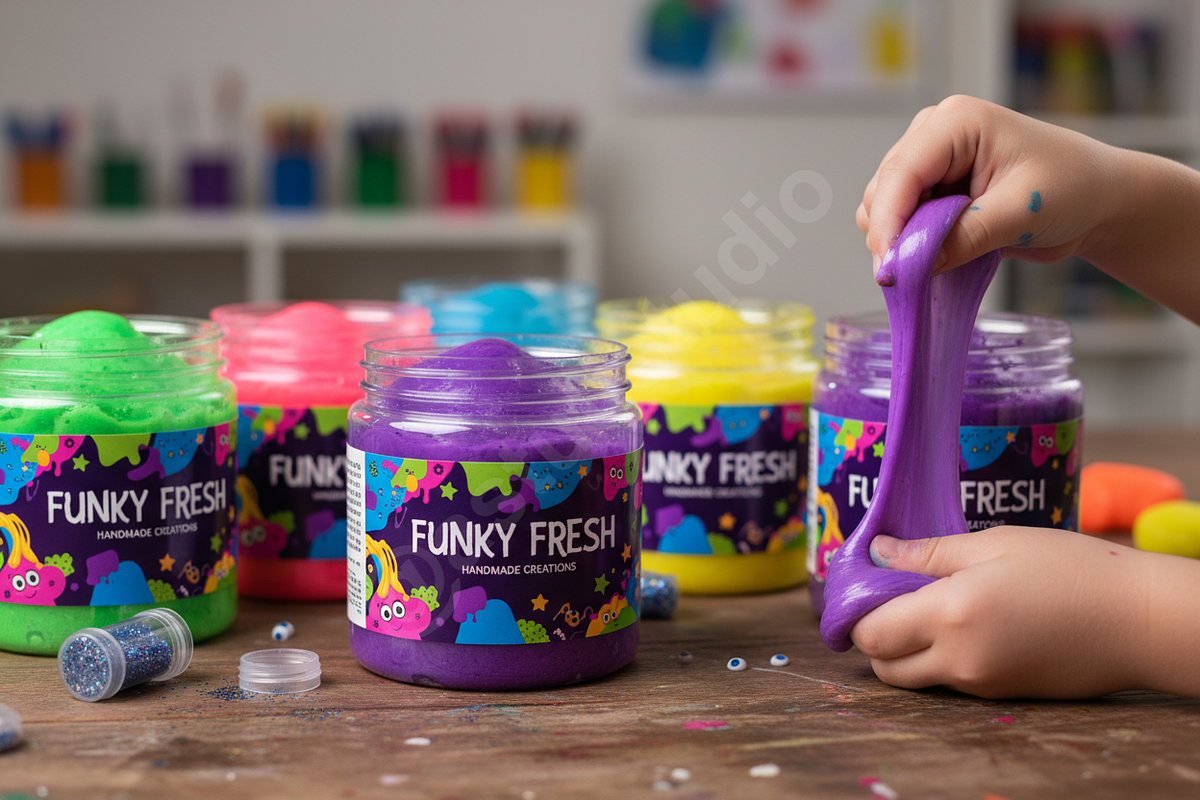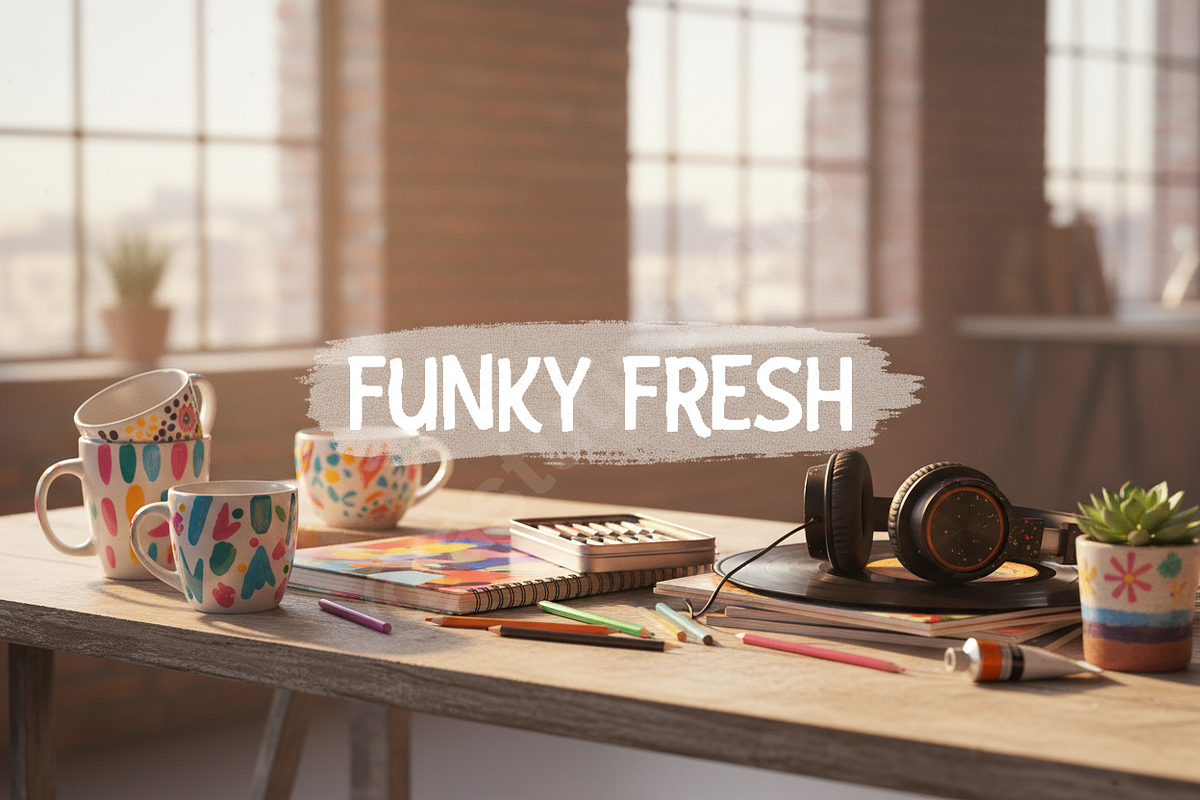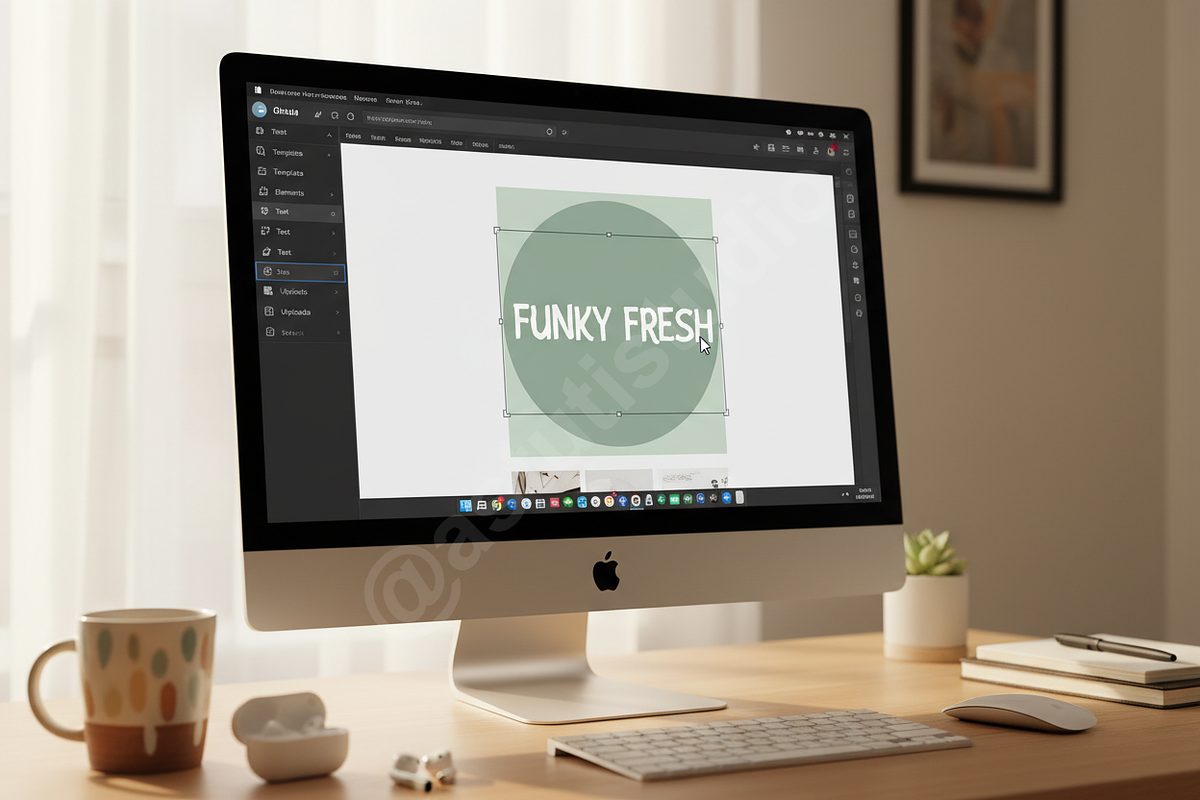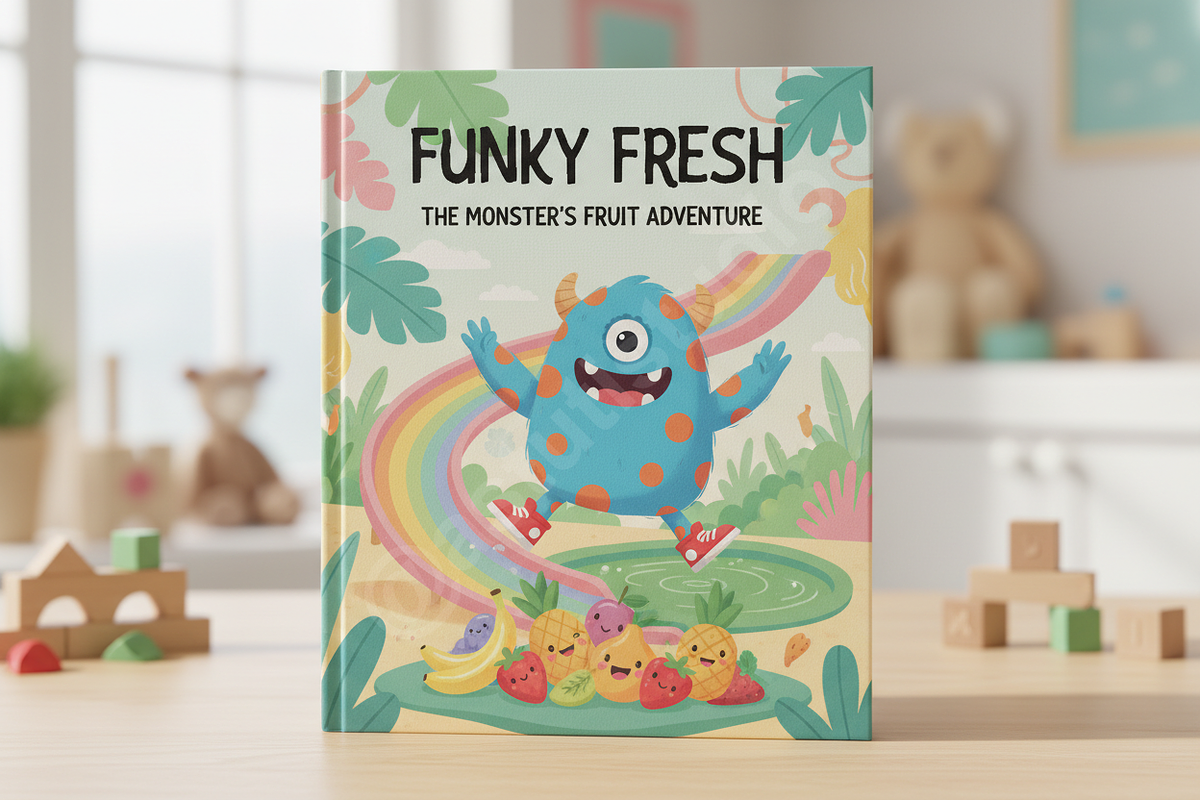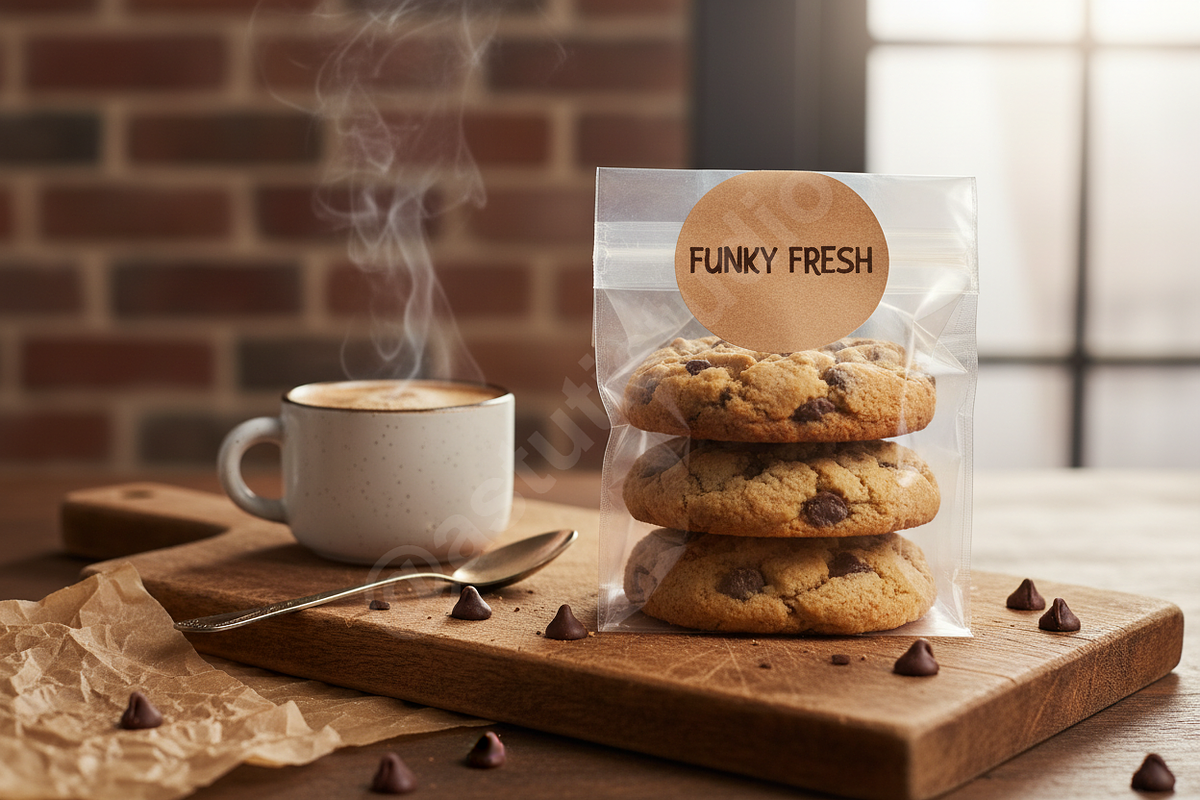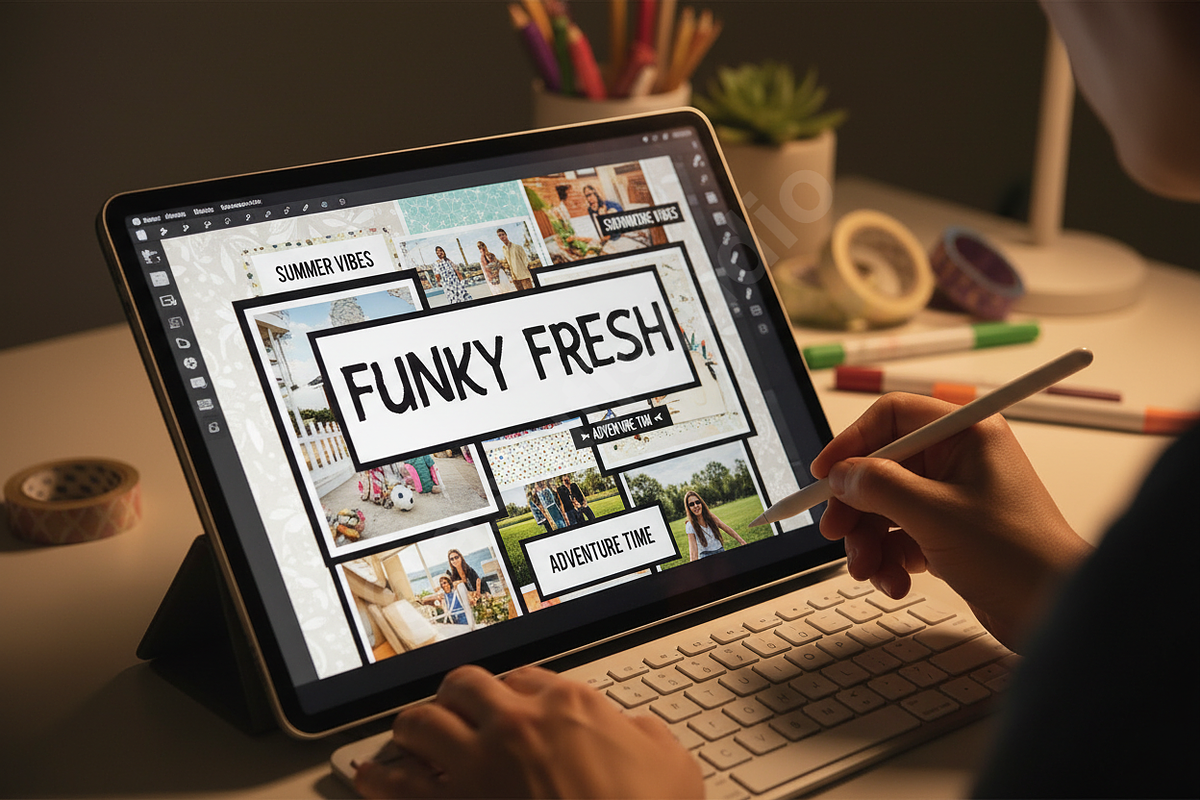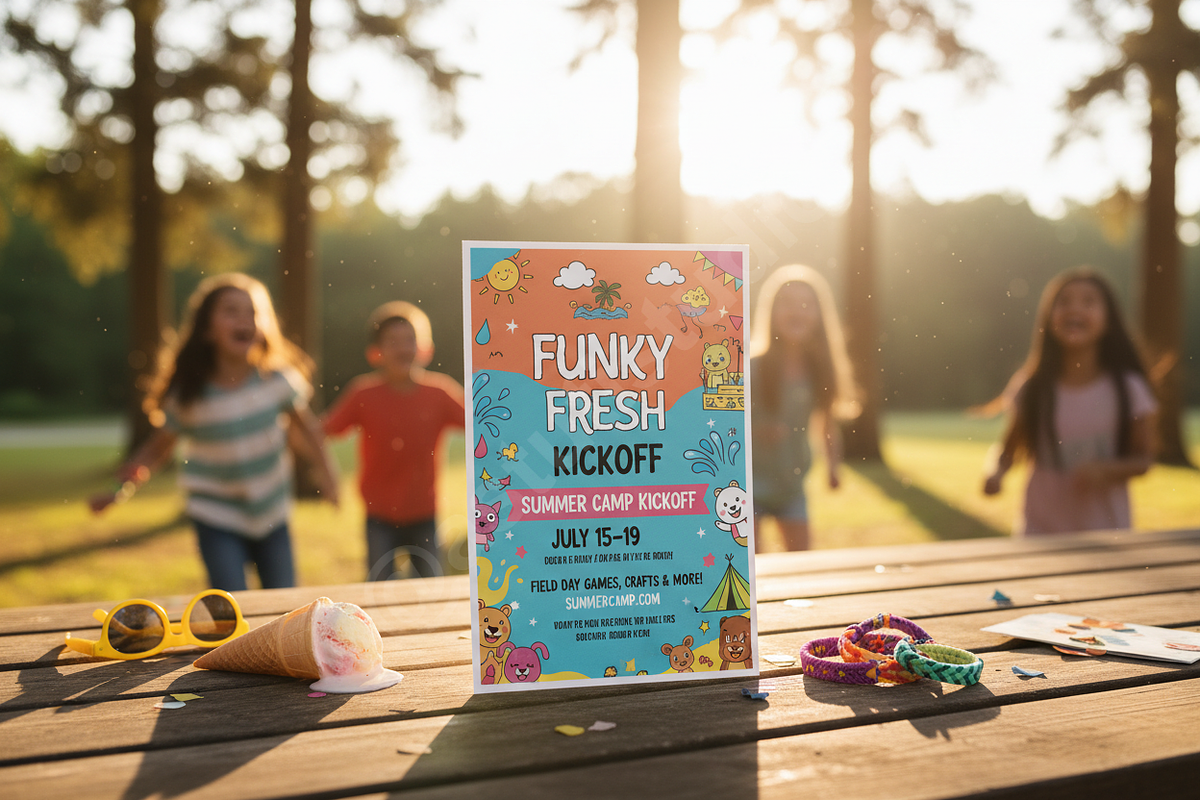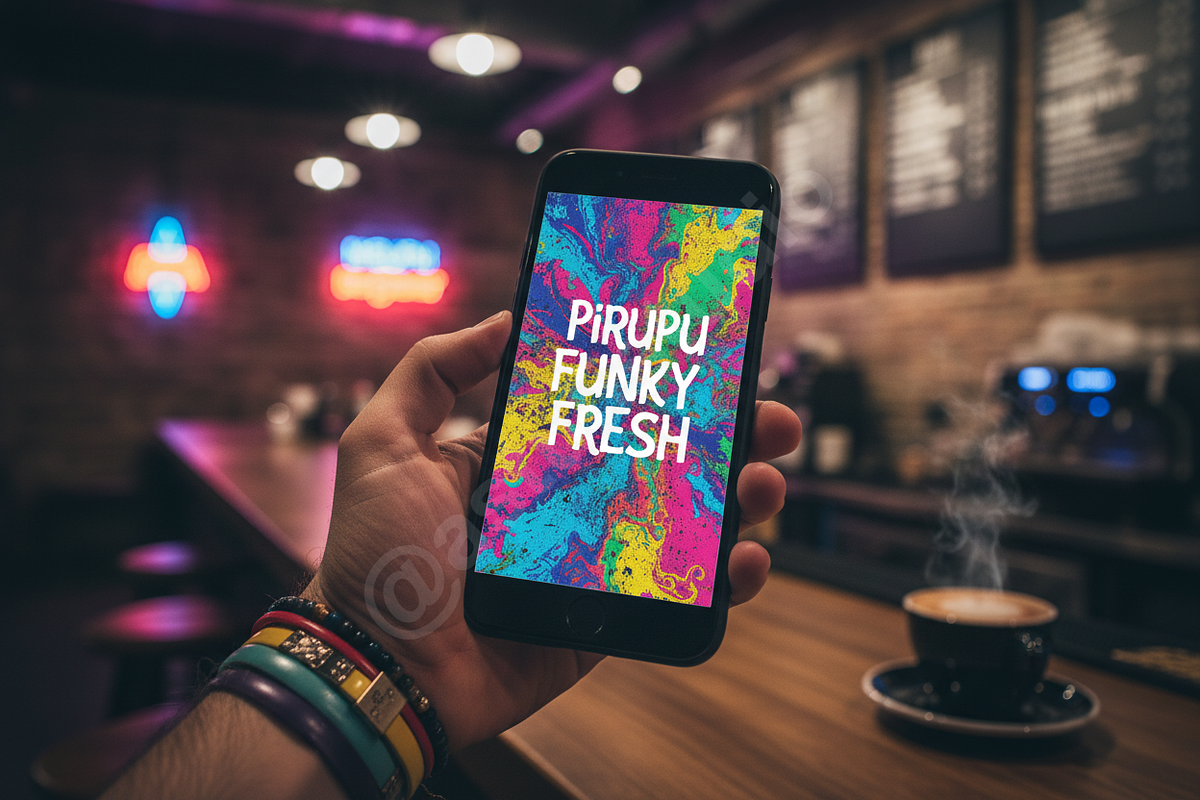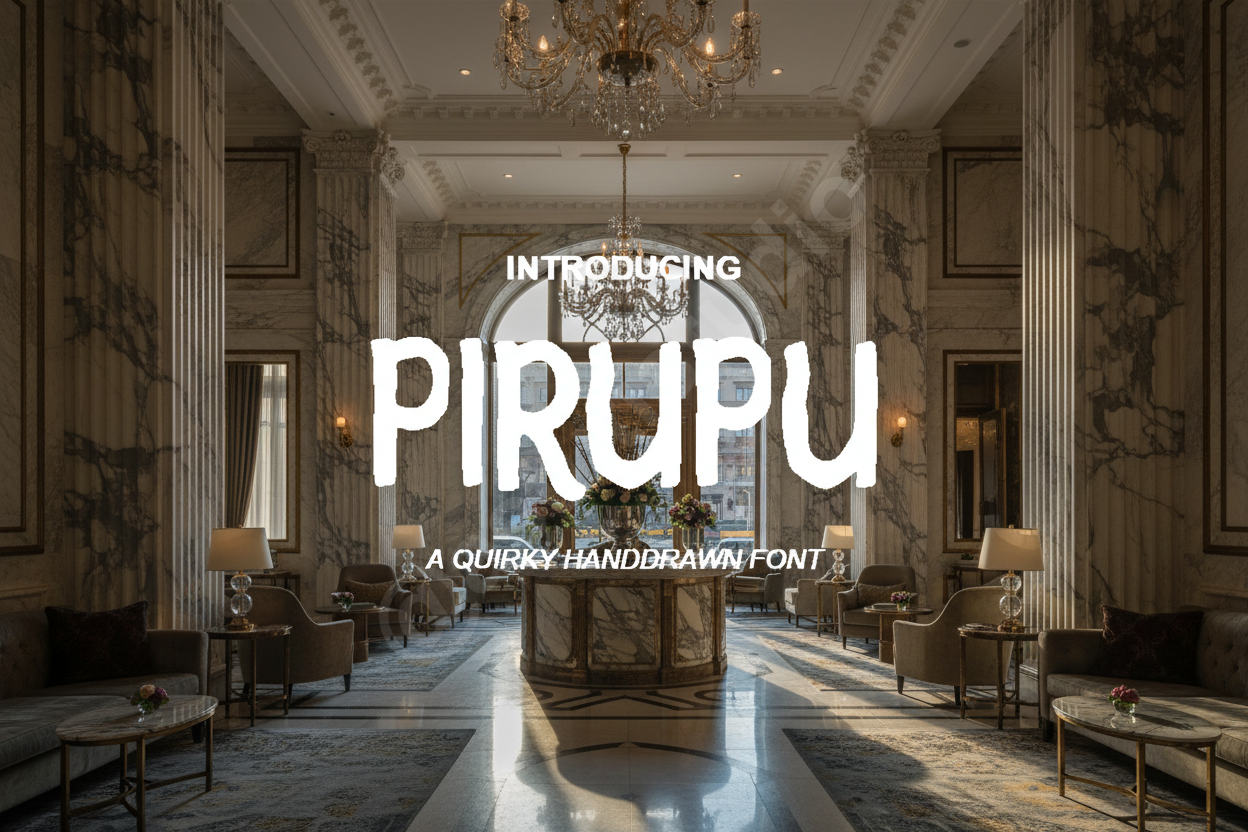
Pirupu - Elegant Serif Typeface for
Pirupu is a refined modern serif typeface meticulously designed for high-end aesthetics and sophisticated visual storytelling. With its perfect balance of graceful curves and sharp, contemporary lines, Pirupu brings an effortless sense of luxury to any design project. Whether you are crafting a brand identity for a boutique fashion house or laying out a high-fashion editorial, this font provides the elegance and versatility required for professional excellence.
- Elegant and unique character ligatures
- Sophisticated high-contrast letterforms
- Full multilingual character support
- Precision kerning for professional layouts
- Clean, legible design at both display and body sizes
- Optimized for luxury branding and editorial design
- Comprehensive set of alternates and decorative characters